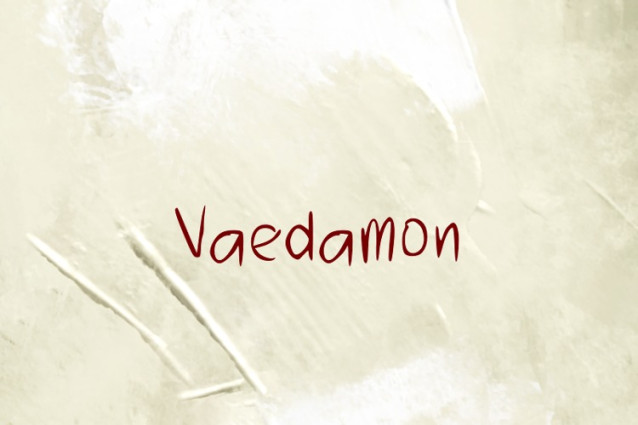
Vaedamon Font
Vaedamon Font is a simple and friendly handwritten font. Its natural and unique style makes it incredibly fitting to a large pool of designs. The only limit is your imagination!